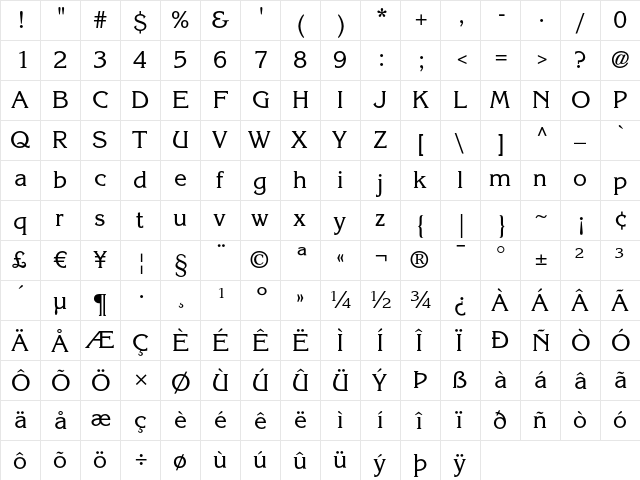
ITC Korinna LT Regular Font Preview
ITC Korinna LT Regular
ITC Korinna LT Regular Font Details
Design Context for ITC Korinna LT Typeface
ITC Korinna LT takes a measured approach to typography — its balanced proportions and neutral character make it a reliable workhorse for both digital and print work. The delicate stroke weight brings airiness and refinement to layouts.
Pro Tip: Use ITC Korinna LT in both headline and body roles to test its range before committing to a single application.